Handwriting fonts bring a personal, creative touch to any design project. From invitations to branding, these fonts can evoke emotions, set a tone, and maHandwriting fonts add a personal, creative touch to any design project.
Whether you’re crafting invitations, branding materials, or posters, these fonts can evoke emotions, set the tone, and make your work truly stand out.
In this guide, you’ll discover the 55 best free handwriting fonts that will instantly elevate your designs. From modern and elegant to whimsical and retro styles, there’s something here for every project.
1. Amsterdam
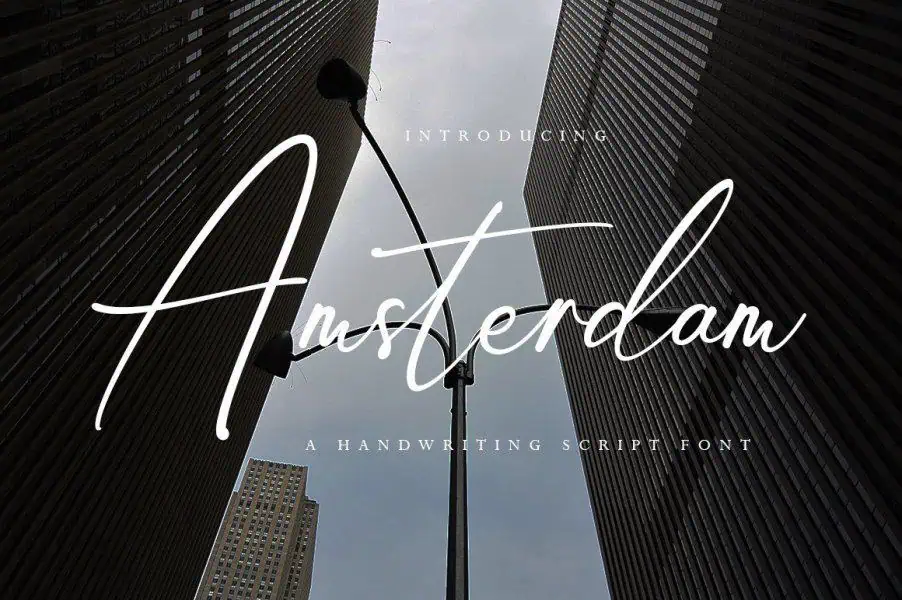
A stylish and elegant script font with a modern touch. Its flowing strokes and delicate curves make it perfect for invitations, logos, and branding projects.
2. Backstreet
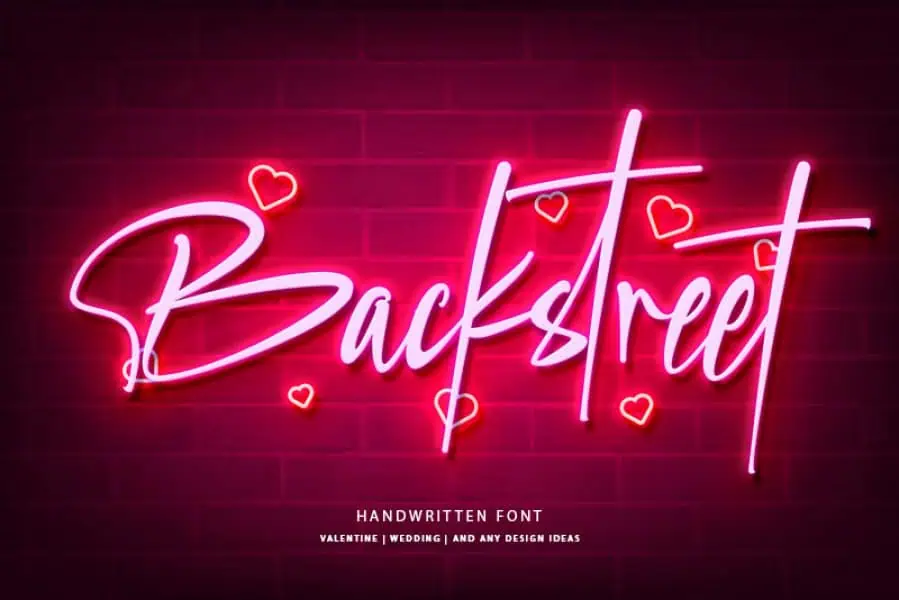
A bolder and expressive script font with a casual, handwritten feel. Its dynamic strokes make it ideal for eye-catching designs, such as posters, logos, and social media graphics.
3. Signatie signature font
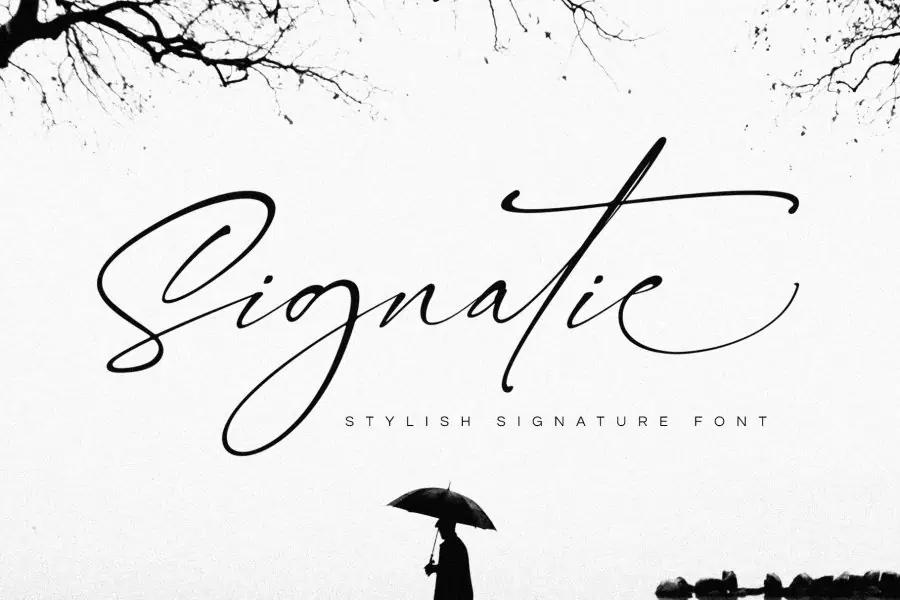
A sleek and sophisticated signature-style font with elegant, flowing lines. Perfect for personal branding, invitations, and upscale projects.
4. Modernline
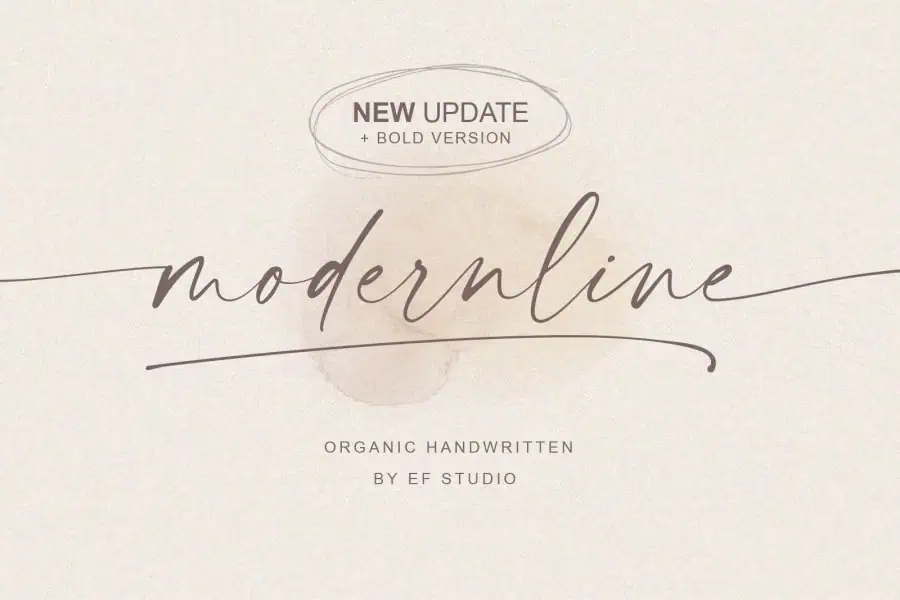
A minimalist and stylish script font with clean, flowing strokes. Ideal for modern branding, social media graphics, and elegant invitations.
5. Delycost
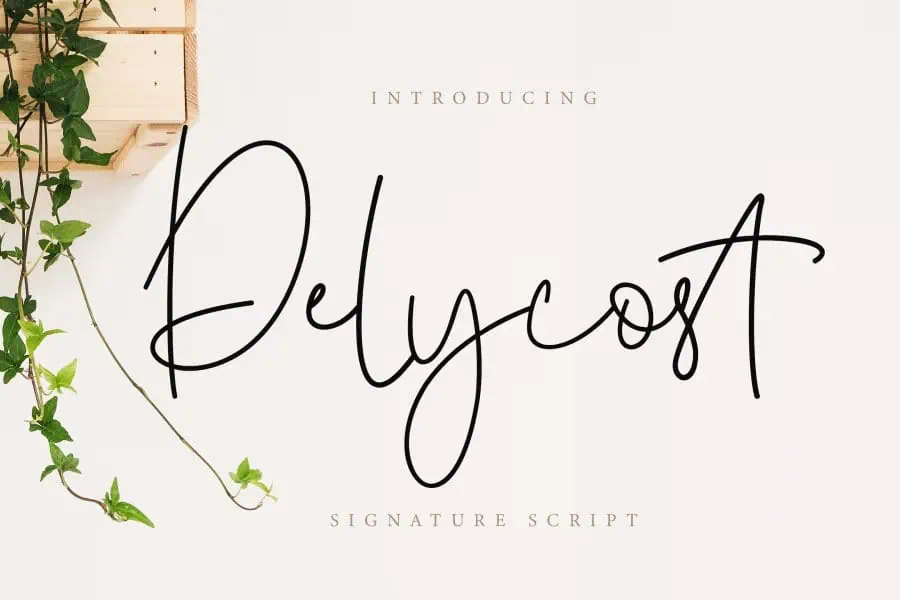
A playful and dynamic handwritten font with monoline strokes and a casual vibe. Perfect for creative projects, posters, and fun branding designs.
6. Lovely Pretty
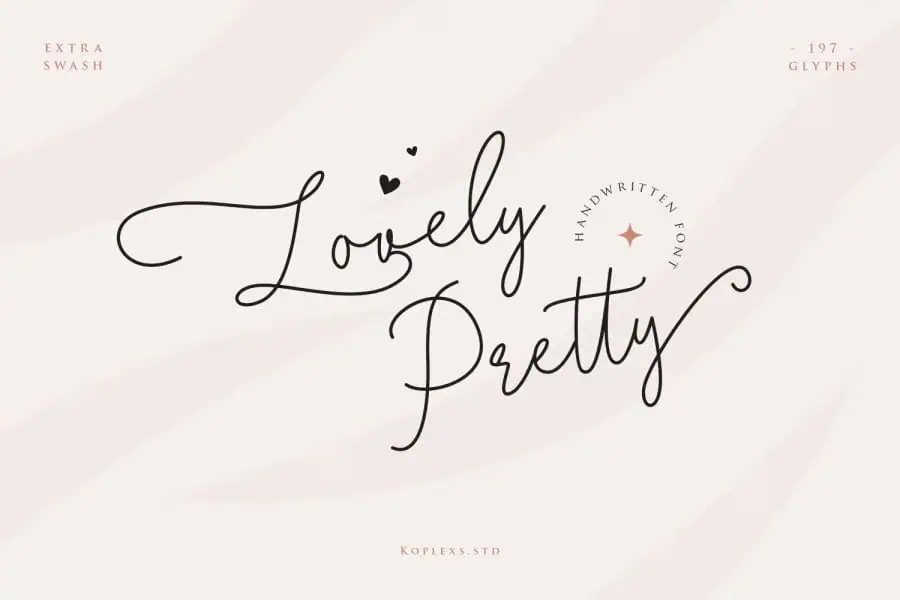
A delicate and romantic script font with soft, flowing curves and a charming handwritten style. Ideal for wedding invitations, feminine branding, and heartfelt messages.
7. Austone Winter
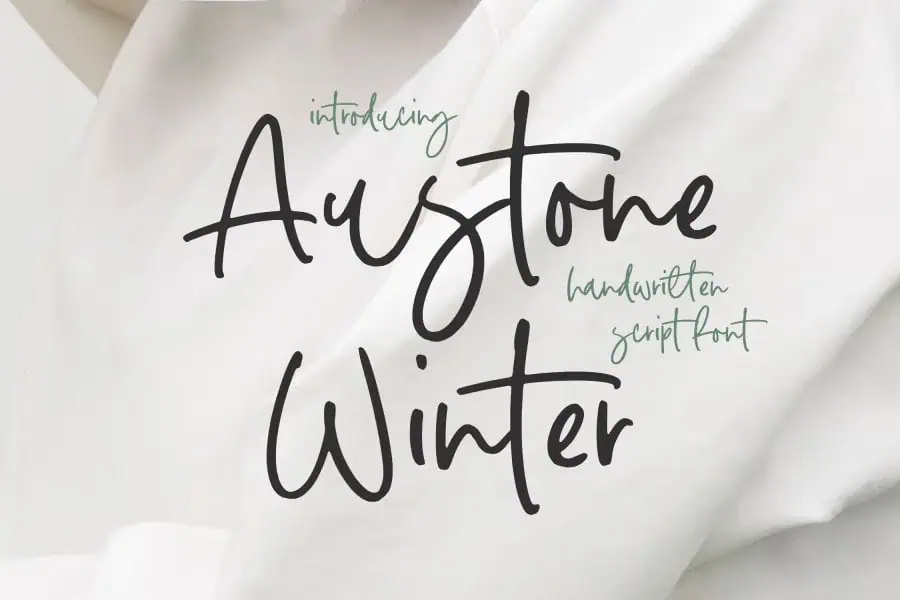
A clean and elegant handwritten font with smooth, flowing strokes. Its dynamic strokes make it perfect for seasonal designs, posters, and cozy branding projects.
8. Your Doodle Font
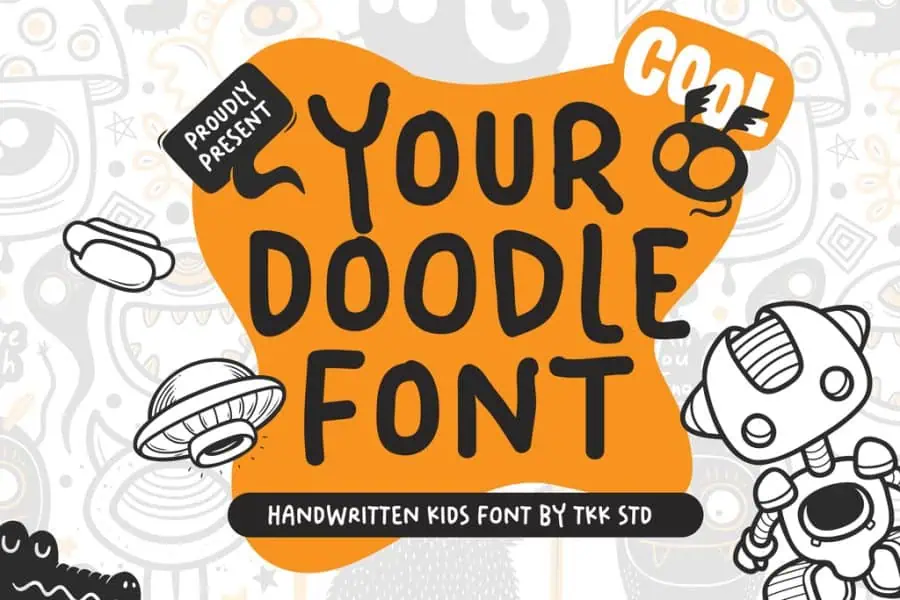
A quirky and playful handwritten font with a casual, doodle-like style. Perfect for children’s projects, fun invitations, and creative designs that need a whimsical touch.
9. Granitta Prostyle
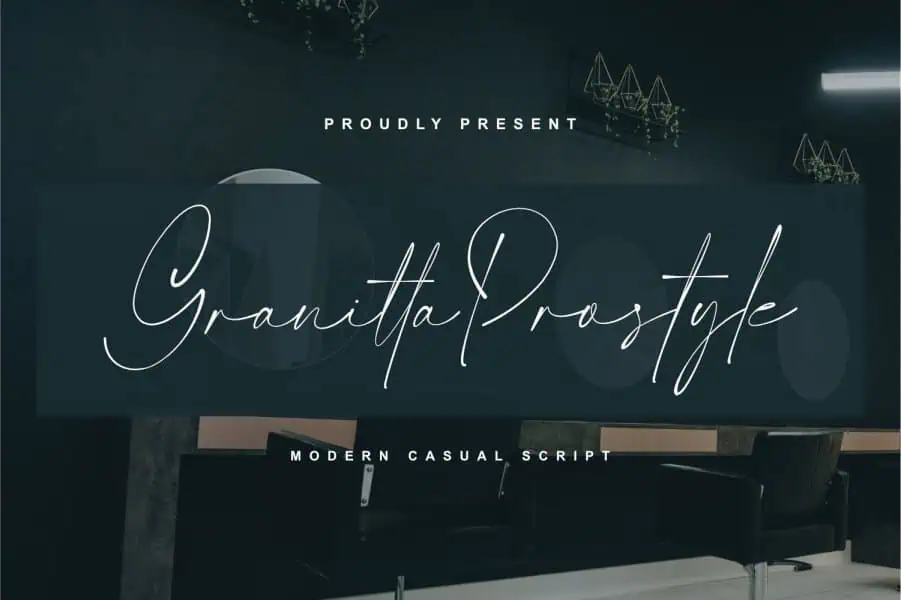
An elegant and modern script font with graceful, flowing lines and stylish swashes. Ideal for high-end branding, wedding invitations, and sophisticated projects.
10. Messy Handwritten
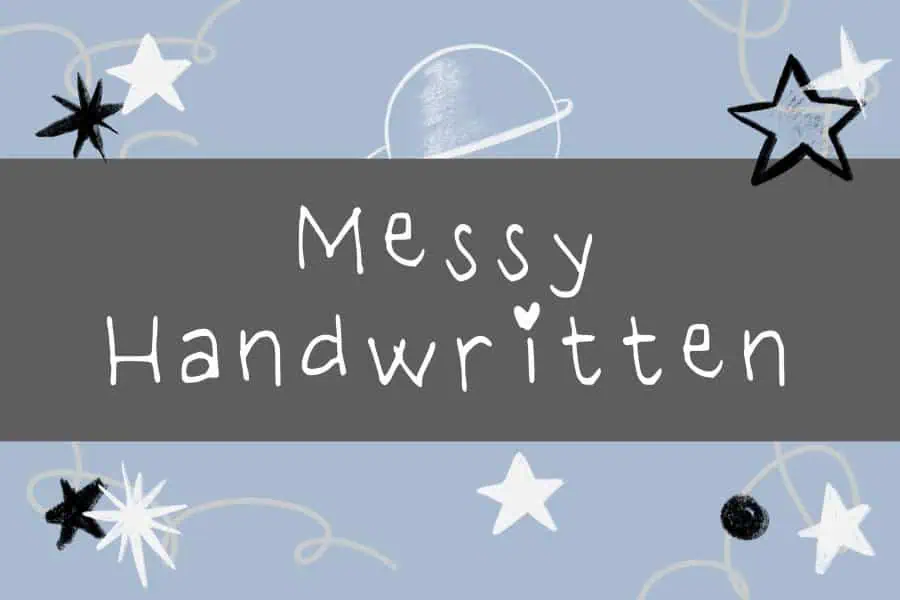
A casual and energetic font with intentionally uneven strokes that exude authenticity. Perfect for creative projects, personal notes, and designs with a raw, hand-drawn aesthetic.
11. Gwathlyn
A whimsical and ornate handwritten font with intricate flourishes and a touch of vintage charm. Ideal for fantasy-themed designs, invitations, and decorative projects.
12. Garfield Signature font
A sleek and refined signature-style font with smooth, flowing strokes. Perfect for personal branding, luxury logos, and professional stationery.
13. Urban Starblues
A bold and edgy handwritten font with dynamic, graffiti-inspired strokes. Perfect for urban-themed designs, posters, and eye-catching branding projects.
14. Road Rage
A bold and gritty brush font with raw, aggressive strokes. Perfect for edgy designs, sports branding, and projects that demand attention.
15. Gathenia
A script font with a distinct dry brush stroke texture, exuding a raw and artistic vibe. Ideal for bold branding, creative posters, and projects that need a handcrafted touch.
16. Brafesuit
A bold and dynamic script font with rough, textured brush strokes that give it an edgy, handcrafted appearance. Perfect for urban branding, posters, and designs that demand a strong, artistic presence.
17. Autumn Brush
A bold and textured brush font with natural, flowing strokes that evoke a rustic and seasonal charm. Perfect for fall-themed designs, invitations, and creative branding projects.
17. More Sugar
A playful and bubbly script font with smooth, rounded strokes that exude fun and energy. Perfect for candy-themed designs, cheerful branding, and lighthearted projects.
18. Story Of Love
A romantic and elegant script font with smooth, flowing curves and delicate swashes. Perfect for wedding invitations, heartfelt designs, and projects that require a touch of sophistication.